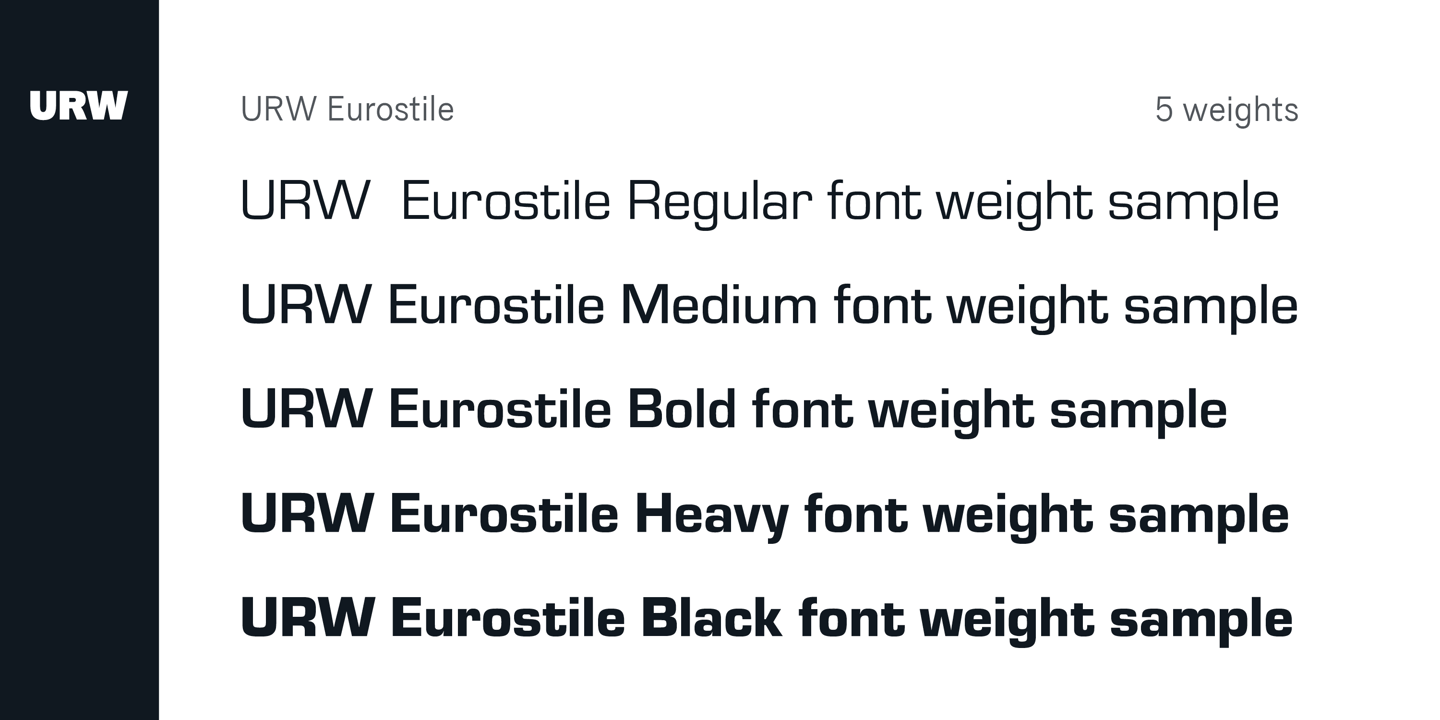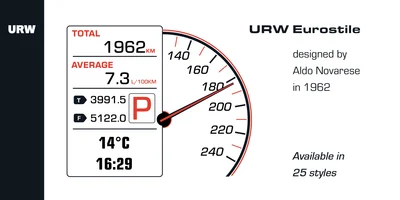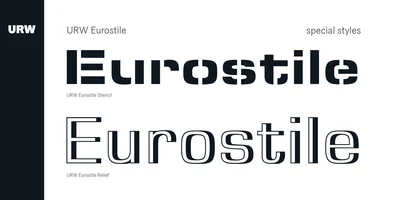
Codec Pro vs Eurostile
Codec Pro and Eurostile are both sans-serif typefaces sharing a geometric foundation. Compare which suits your Tech project.
Codec Pro
Eurostile
Codec Pro
Eurostile
| Feature | Codec Pro | Eurostile |
Recommended: Codec Pro
- modern design character
- Suited for Ui and Branding
Consider: Eurostile
- Suited for Sci Fi and Automotive